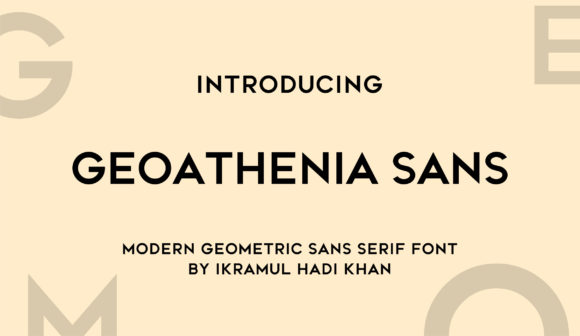
Step into the realm of visual enchantment with Geoathenia Sans, the font that will ignite your designs with elegance and refinement. Its meticulously crafted sans serif characters exude an aura of minimalism and authenticity, promising to elevate your creative projects to new heights.
With Geoathenia Sans, you'll discover a font that effortlessly adapts to a myriad of design endeavors. Whether you're crafting presentations, designing logos, or creating eye-catching headlines, this font possesses the versatility to seamlessly integrate into your vision.
Unleash your creativity and witness how Geoathenia Sans transforms your projects into captivating masterpieces. Its clean lines and subtle curves impart a touch of sophistication, while its inherent legibility ensures that your message is conveyed with clarity and impact.
As you immerse yourself in the world of Geoathenia Sans, prepare to be captivated by its ability to evoke emotions and leave a lasting impression. This font has a knack for transforming ordinary words into captivating narratives, resonating with audiences on a profound level.
Whether you're a seasoned designer or just starting your creative journey, Geoathenia Sans is the perfect companion for your endeavors. Its user-friendly nature makes it accessible to all skill levels, allowing you to effortlessly create stunning visuals that will leave your audience in awe.
Don't let this opportunity pass you by. Embrace the allure of Geoathenia Sans and embark on a creative odyssey that will redefine your design horizons. Experience the transformative power of this font as it elevates your projects to new levels of excellence.